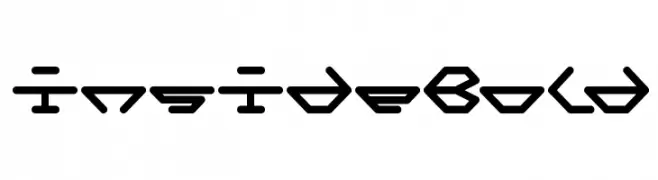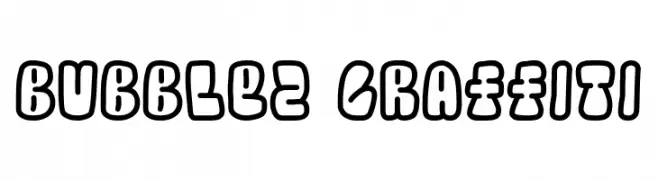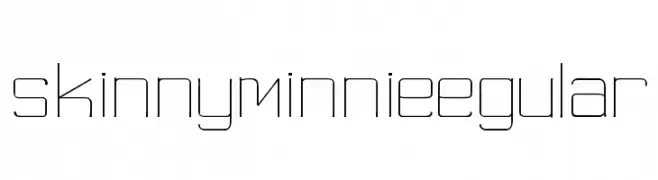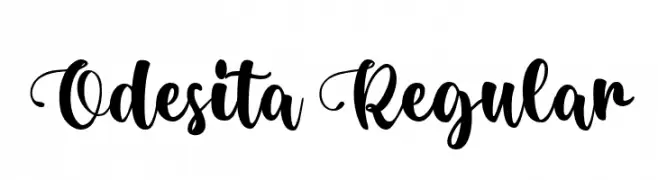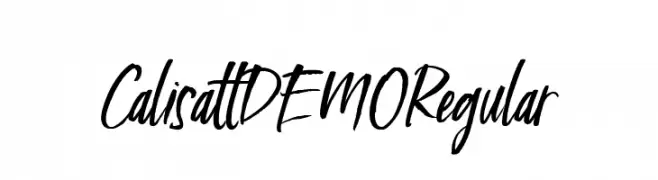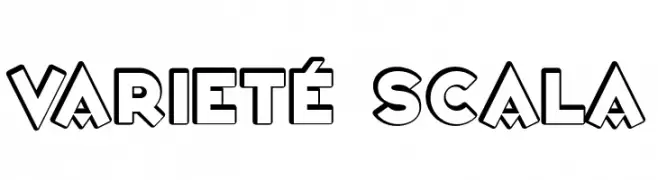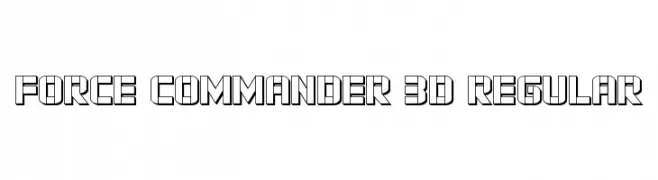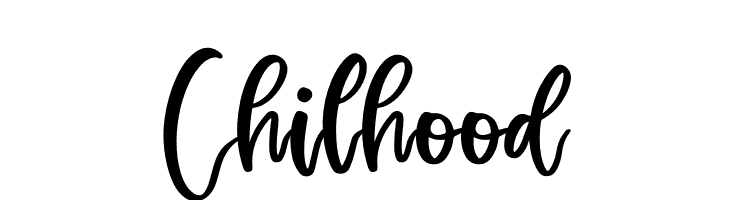
A bold, geometric font with a futuristic, tech-inspired design.
A bold, playful graffiti-style font with thick, rounded outlines and a bubbly appearance.
A minimalist and modern font with thin, linear strokes and geometric shapes.
A bold, jagged font with a spooky, dynamic design.
A playful and elegant script font with flowing, cursive design and decorative flair.
A dynamic and expressive handwritten font with fluid strokes and a brush-like texture.
A bold, geometric font with a three-dimensional effect and strong visual impact.
A bold, 3D geometric font with a futuristic style.
A bold, geometric font with a modern, industrial style.
A bold, handwritten script font with a lively and dynamic style.